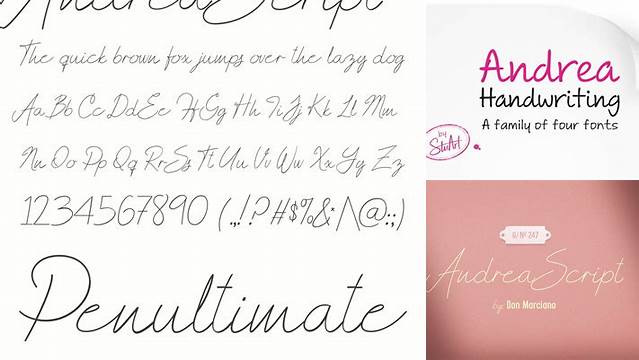
Hey guys! Ever found yourself staring at a blank canvas, whether it's a digital document or a handwritten note, and wished for a little something extra? Something that screams personality, style, and maybe a touch of elegance? Well, you're in the right place! Today, we're diving headfirst into the world of Andrea Handwriting and Andrea Script Slanted Font, offering you a free download and a comprehensive guide to jazzing up your projects. These fonts are super versatile, adding a unique touch to everything from invitations and social media graphics to personal journaling and professional documents. So, buckle up, because we're about to unlock a world of creativity, one slanted letter at a time!
What Makes Andrea Handwriting and Script Slanted Font So Special?
Let's talk about what makes these fonts stand out from the crowd. First off, the Andrea Handwriting font offers a charming, slightly imperfect, handwritten look. It's the kind of font that makes you feel like a real person penned it, not a soulless machine. The imperfections are what give it character, making your designs feel warm, inviting, and utterly unique. Think of it as the cool kid in the font family, always bringing a touch of individuality.
Then, there's the Andrea Script Slanted font. This font takes things up a notch with its elegant, flowing script. The slant adds a dynamic feel, suggesting movement and sophistication. It’s perfect for anything where you want to evoke a sense of grace and style. It's like the font equivalent of a perfectly executed pirouette – graceful, eye-catching, and unforgettable. The slanted design is key; it gives a sense of energy and movement. This font isn’t just about aesthetics; it's about expressing a feeling. It tells a story, conveys a mood, and adds that extra layer of creativity that will grab everyone’s attention.
Both of these fonts come from the same creative well, designed to complement each other seamlessly. While the handwriting font excels in casual, personal settings, the script font shines in more formal and stylish applications. Together, they make a dynamic duo, helping you convey your message effectively and attractively. Whether it’s a personal project or a business endeavor, the versatility of these fonts is unmatched, making them ideal for a wide range of creative projects.
Best Uses for Andrea Handwriting and Script Slanted Font
Now that you've got the fonts, let's explore how you can use them. These fonts are like the Swiss Army knife of the design world – incredibly versatile! Here's a rundown of some cool applications to get those creative juices flowing.
- Invitations and Greeting Cards: Nothing beats a handwritten-style font for making invitations and greeting cards feel personal and special. Whether it's a wedding invite, a birthday celebration, or a simple thank-you note, these fonts will add a touch of warmth and elegance. The script font is especially perfect for formal events like weddings, adding that classy touch that everyone loves.
- Social Media Graphics: Want to make your social media posts pop? Use these fonts for captions, quotes, or even your brand name. They're great for Instagram posts, Pinterest pins, and Facebook graphics. The slanted script font is perfect for creating eye-catching titles, while the handwriting font gives a more friendly vibe to your posts.
- Website Design: These fonts can add a unique touch to your website's headings and call-to-action buttons. They are super effective for creating a welcoming and friendly website design. Be careful not to overuse them in large chunks of text, because they can be harder to read in large bodies of content, but they work wonders for headings, subheadings, or highlighting key messages.
- Personal Projects and Journals: If you’re into journaling, scrapbooking, or creating personalized gifts, these fonts will be your best friends. They add a touch of personality to your creations, making them feel handmade and unique. Use them to write out your thoughts, add captions to photos, or design custom stickers.
Conclusion: Unleash Your Creativity with Andrea Handwriting and Script Slanted Font